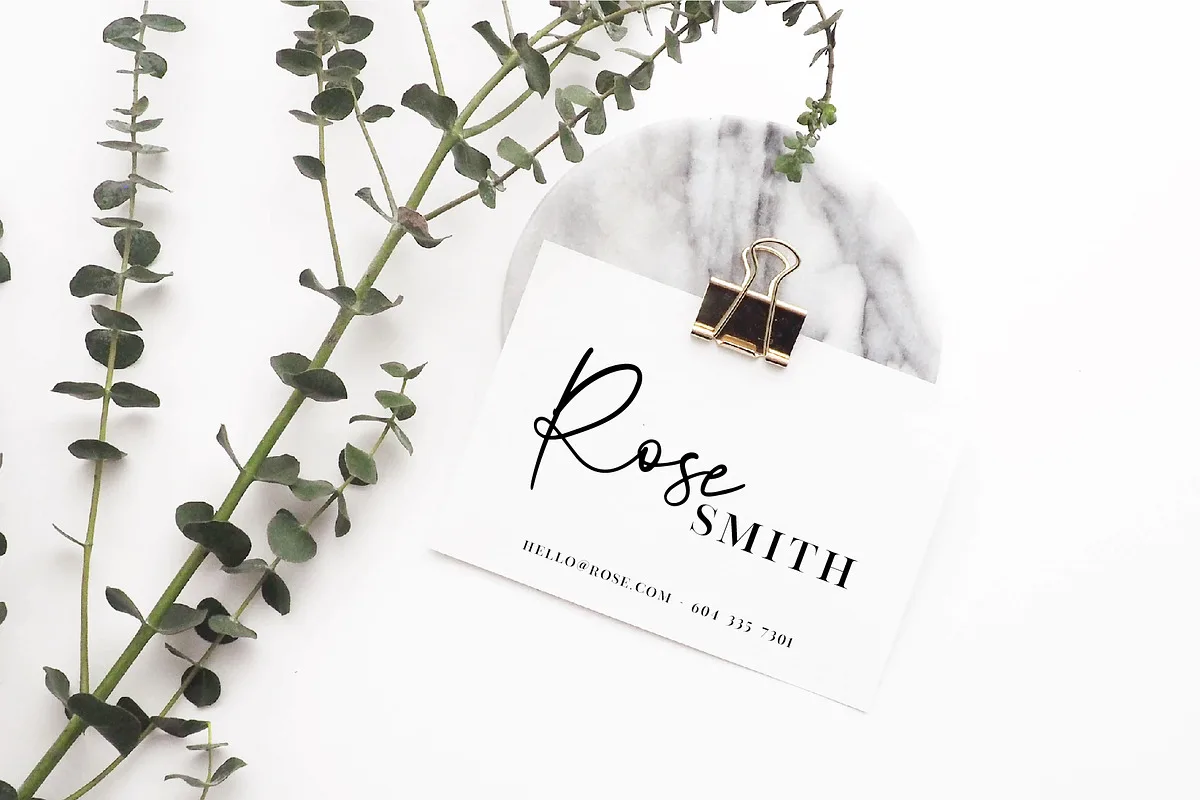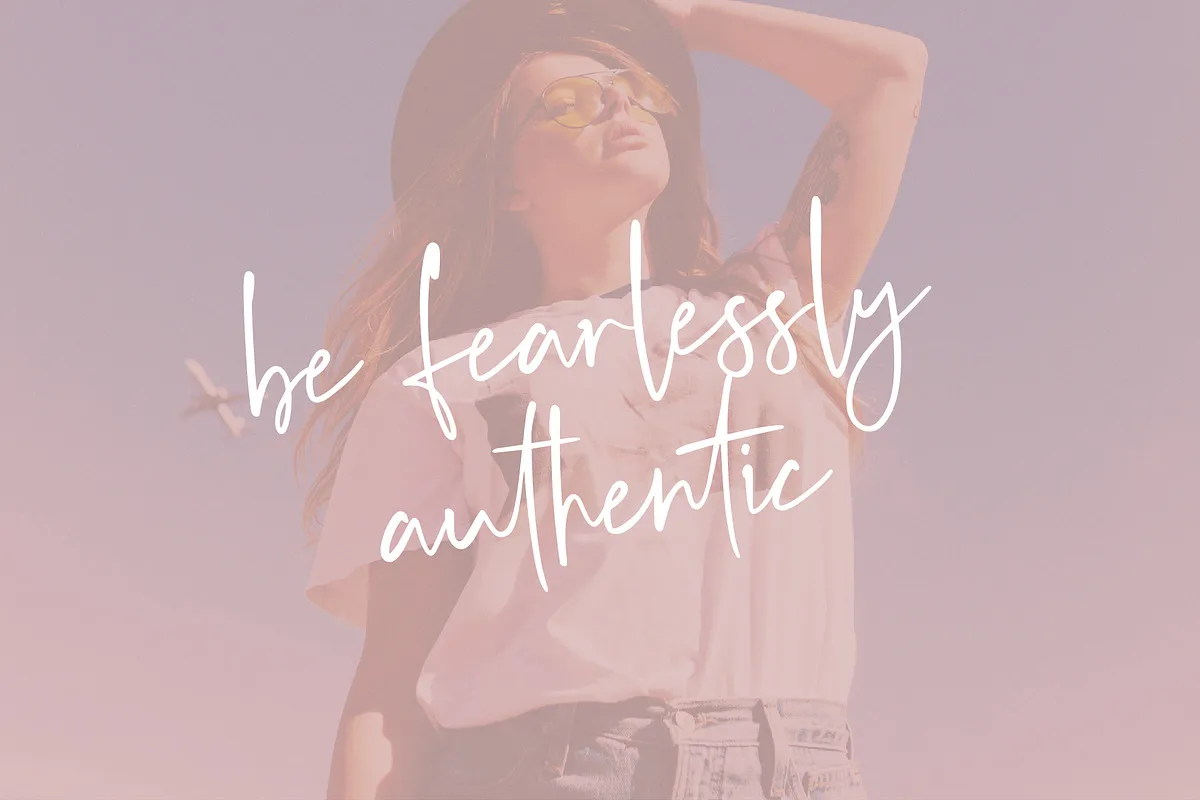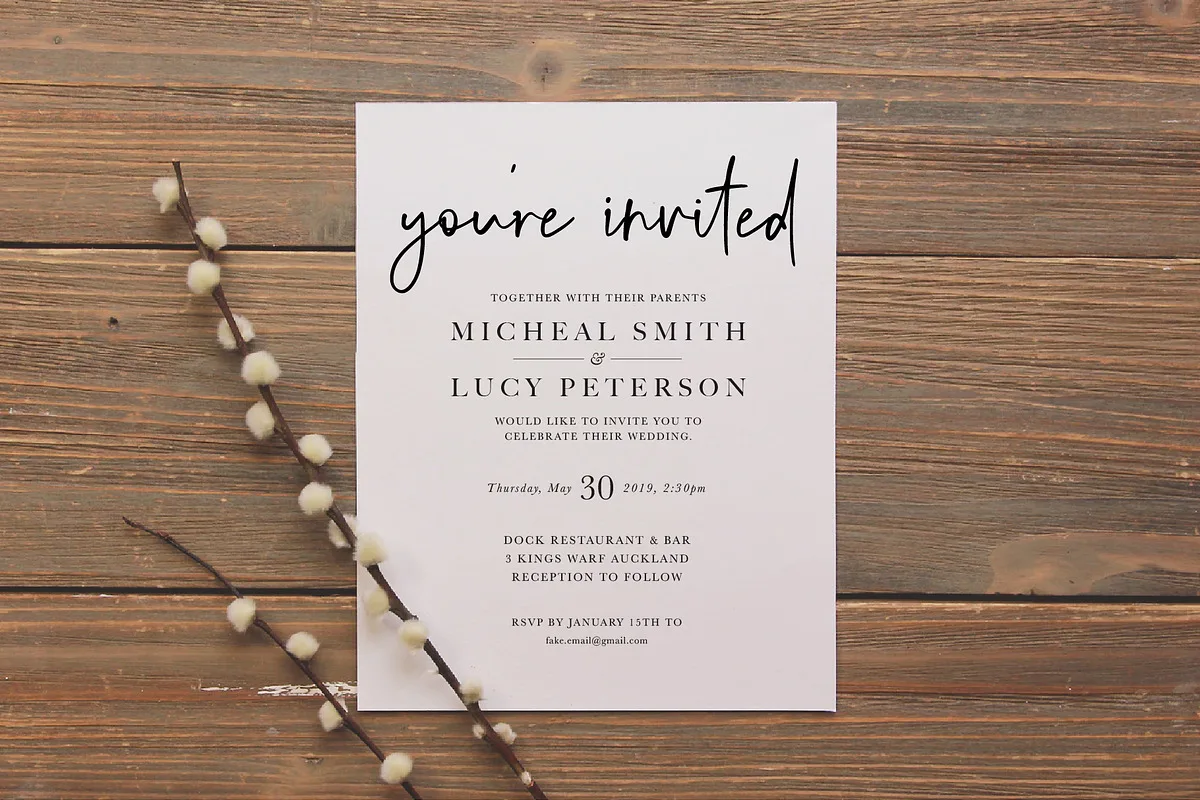
Audrey Font is a feminine, but slightly edgy and fun handwritten script font. This font stands perfectly on its own for Logos and Quotes or works great paired with an all-caps serif or sans serif, as pictured above.
This font is perfect for Logos and comes with a large range of Ligatures to give it a super hand-written feel.
Audrey Regular – A handwritten script that contains the English alphabet, numbers 0-9, a range of punctuation and symbols and automatic 92 ligatures.
Audrey Italic – The same as above but an italics version.